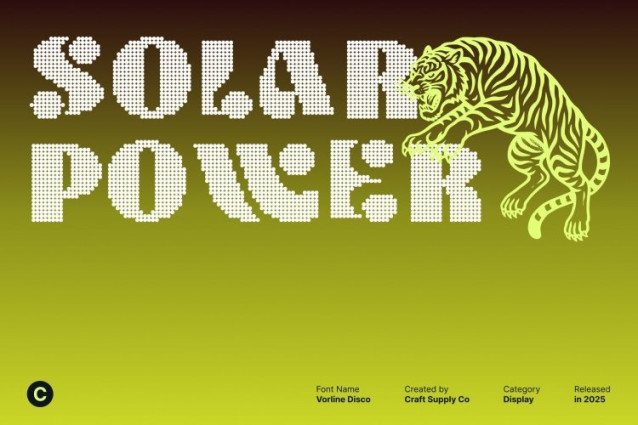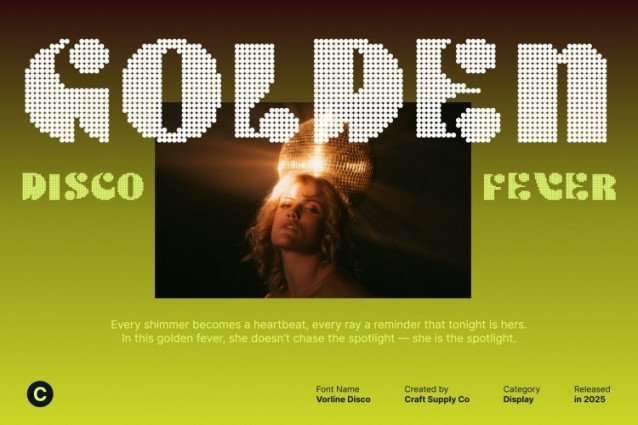
Vorline Disco Font
Vorline Disco Font This is a modern sans-serif font defined by its bold, clean, and contemporary lines, delivering a strong visual presence in any layout. Its structured form enhances readability while offering a stylish and confident look. This solid foundation makes this font an excellent choice for designers seeking a font that feels both modern and impactful.
Funky Flair and Quirky Personality
Adding a playful twist, this font incorporates a funky flair and quirky character that sets it apart from ordinary sans serifs. Its expressive details inject creativity and personality into every letter, making your designs more dynamic and engaging. This blend of bold structure and whimsical charm creates a font that feels uniquely fresh and full of character.
Disco Sparkle Effect for Glamour and Visual Shine
To elevate the design further, the disco sparkle effect introduces shimmering highlights and vibrant energy to each character. This glamorous detail transforms the modern sans serif base into a lively, eye-catching display typeface. The combination of clean lines, funky style, and sparkling disco flair ensures unforgettable visual impact.
Perfect for Logos, Posters, Editorials, and Branding
This font shines in logos, posters, editorial layouts, branding projects, social media graphics, and creative promotional materials. Whether you’re crafting a bold headline, designing a standout visual identity, or building a modern campaign, this font delivers a fresh, energetic, and glamorous presence.